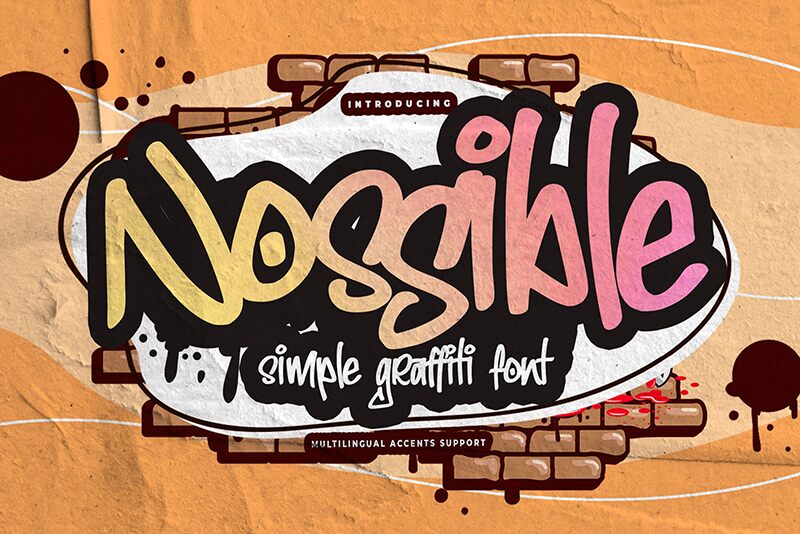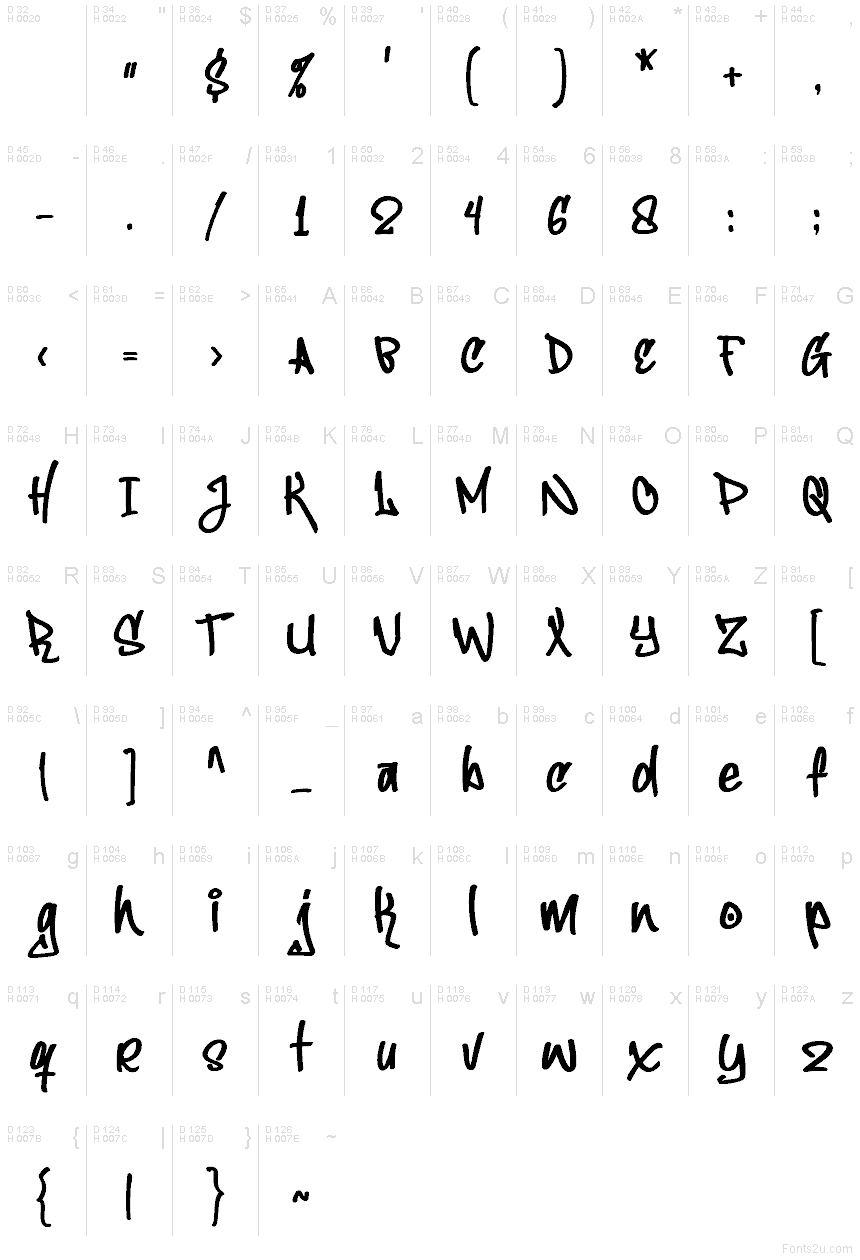
Nossible font by Gassstype is a free graffiti typeface. It swings with bold, inky strokes and pillowy curves that feel fresh off a marker tip, complete with a loose, tag-like rhythm. The letters lean and loop with confident bounce, giving headlines instant swagger without turning messy. Soft edges keep it friendly, while the tightened flow holds compositions together.
Using Nossible, you can energize streetwear logos, music covers, event flyers, skate shop branding, stickers, packaging, and YouTube thumbnails. This free font thrives big and close, where its juicy forms can breathe. For balance, pair it with a clean condensed sans for secondary text, or set captions smaller and all-caps to let the main wordmark pop.